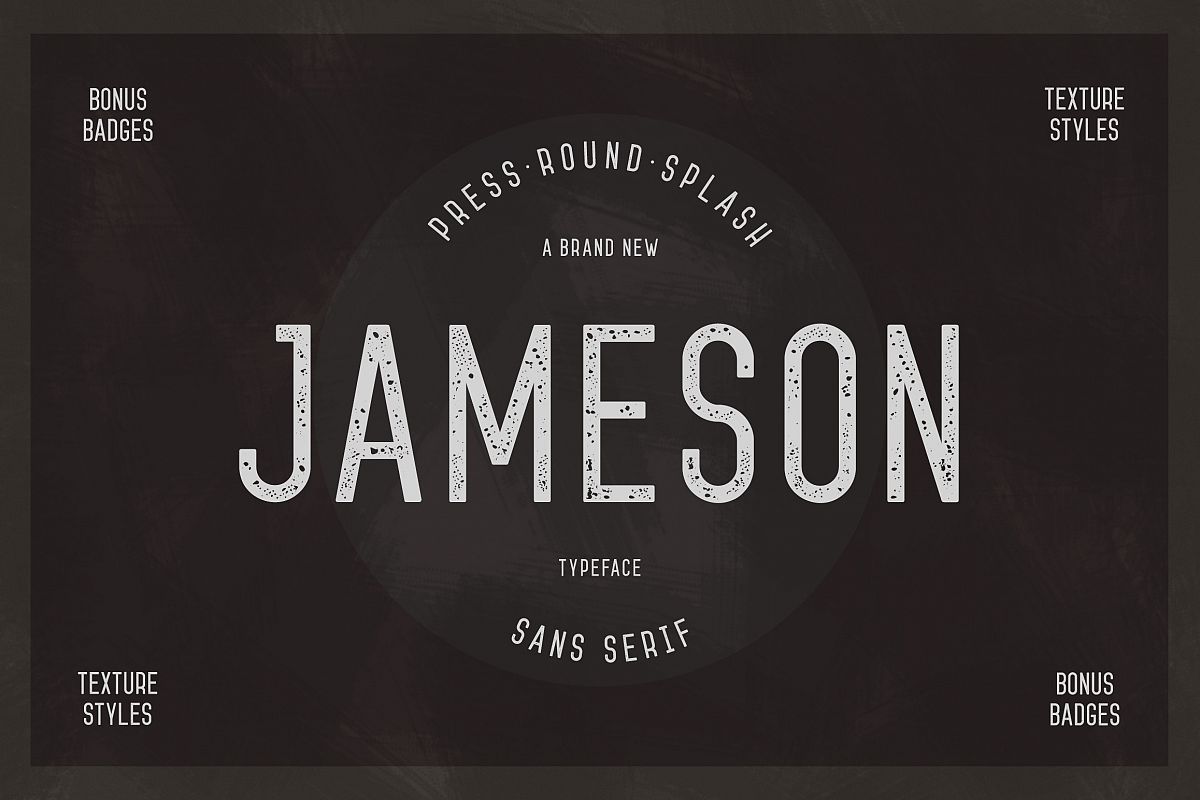
Jameson Sans-Serif
Jameson SS Base
Jameson SS Round
Jameson SS Splash
Jameson SS Press
We prepared four styles of which two has unique effects scrapes, perfect weight and width font makes it more versatile to use for small headline, as well as large.